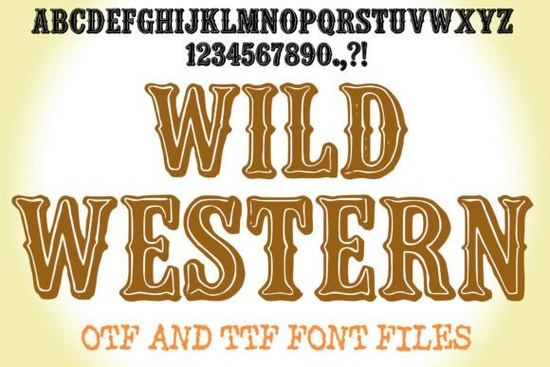
If you're looking for a bold, authentic Western-style font that works well for logos, event posters, or craft projects especially around themes like rodeos, country music, BBQ brands, or vintage saloon aesthetics you’ll want to take a closer look at the Wild Western Font. It’s not just another “cowboy” typeface with exaggerated serifs and random spur shapes. This is a carefully designed display font rooted in real wood-type history, with thick stems, flared terminals, and subtle engraved inlines that give it texture and depth even before you add colour or effects.
What makes Wild Western stand out from other Western fonts?
Many Western fonts rely on clichés: too much distress, overdone drop shadows, or inconsistent spacing that breaks rhythm in headlines. Wild Western avoids those pitfalls. Its letterforms are balanced and tightly spaced, so even short words like “RIDE” or “TEXAS” hold visual weight without crowding. The OTF and TTF files include full A–Z uppercase, numerals, and standard punctuation no missing glyphs mid-project. And because it’s built for impact at large sizes, it scales cleanly whether you’re printing a 24" festival banner or laser-cutting a small leather badge.
You’ll also notice how well it pairs with simpler supporting type. Try setting body copy in a clean grotesk (like Montserrat or Inter) or a tight serif (such as Playfair Display), then adjust tracking between –10 and +40 depending on size tighter for big headlines, looser for medium-sized signage. That flexibility helps avoid the “wall of text” effect common with heavy display fonts.
Where does Wild Western work best?
This font shines where personality and place matter: think food truck wraps for a Texas-style BBQ joint, vinyl decals for a local honky-tonk, or heat-transfer designs for rodeo-themed apparel. Crafters use it for rustic wooden signs, scrapbook pages with vintage travel themes, or printable party invites for a “Wild West birthday.” Print-on-demand sellers find it especially useful for niche markets country music merch, Western-themed stationery, or even themed home decor like canvas wall art or enamel pins.
For extra authenticity, pair it with warm, earthy palettes (think burnt sienna, saddle brown, faded denim blue) and weathered textures light grain overlays, subtle paper noise, or soft edge wear. Avoid oversaturating; let the font’s built-in character do the talking.
How does it compare to other popular Creative Fabrica Western fonts?
If you’ve used Howdy Cowgirl Font, you’ll appreciate how Wild Western leans more into classic typography than playful illustration it’s less cartoonish, more timeless. Compared to Grunge Project Font, it trades raw distortion for intentional craftsmanship: same rugged vibe, but cleaner execution. Fans of Boy Graffiti Font might enjoy its energy, but Wild Western swaps urban edge for frontier confidence. And while Grinches Font brings holiday charm and Self Dream Font leans dreamy and modern, Wild Western stays grounded in a very specific era and attitude.
It’s worth noting that this isn’t a script or handwritten font so if you need flowing cursive for invitations or elegant monograms, look elsewhere. But for strong, declarative statements? It delivers.
- Test spacing first: set your word at 120pt, then adjust tracking gradually don’t assume default settings will work.
- Layer thoughtfully: try a light stroke (1–2pt) or soft drop shadow before adding textures too many effects can muddy the design.
- Use vector outlines when possible (especially for cutting machines or embroidery digitizing) to preserve sharp edges.
- Preview on background textures early some weathered papers or distressed overlays clash with overly tight kerning.